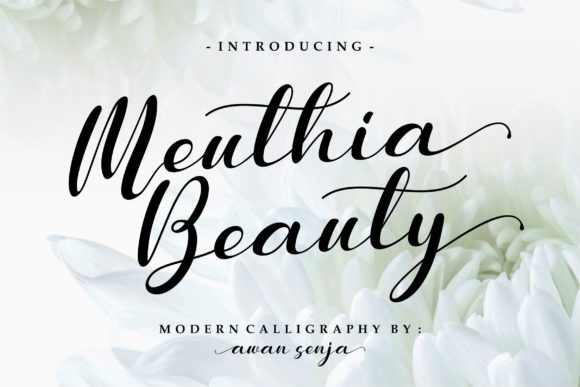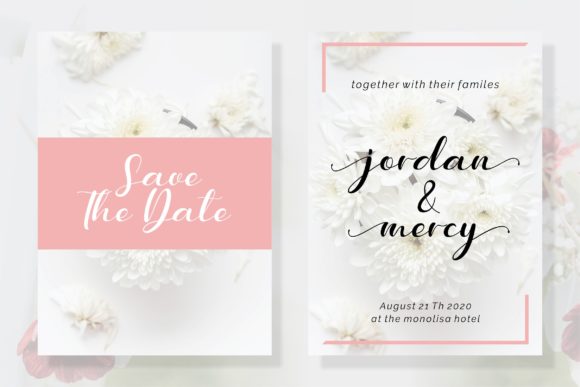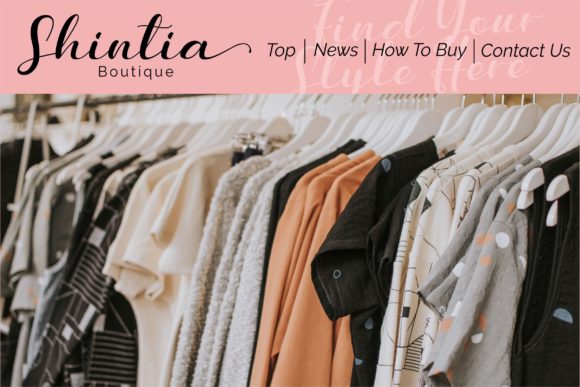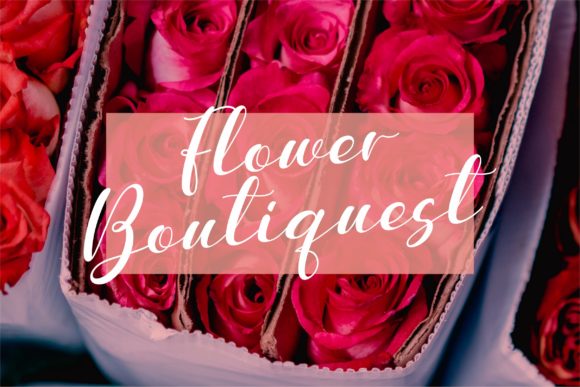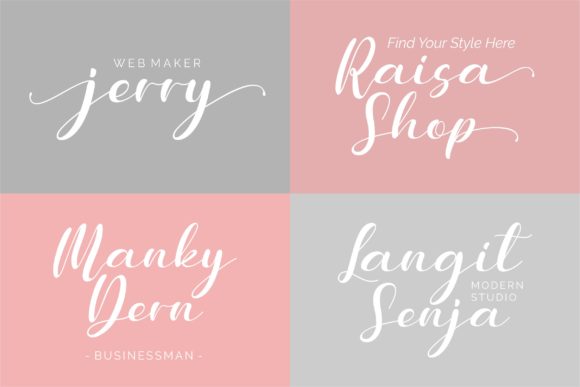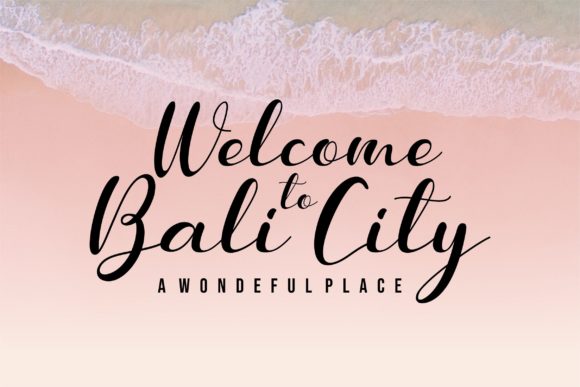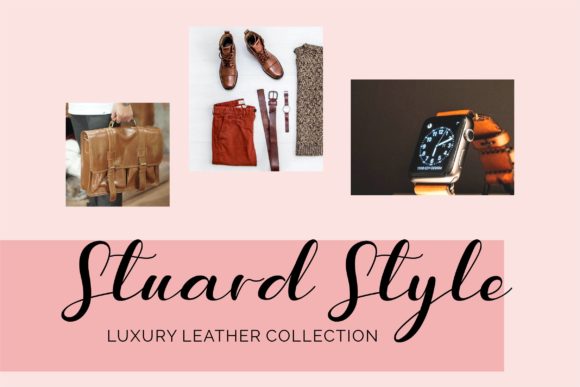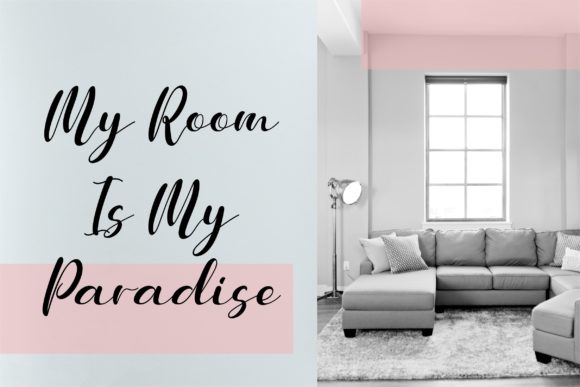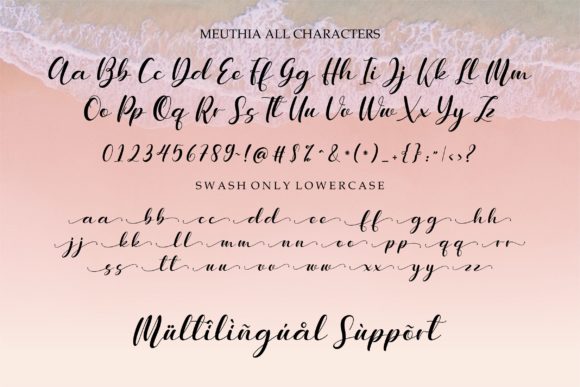
Meuthia Font
About Meuthia Font
Meuthia is a beautiful and classy signature font. This is a beautiful combination of timeless elegance and authentic calligraphy. It features an incredibly classic style, while still keeping a friendly feel. Fall in love with its authentic feel and use it to create gorgeous wedding invitations, beautiful stationary art, eye-catching social media posts, and cute greeting cards.
This font is PUA encoded which means you can access all of the amazing glyphs and swashes with ease! It also features a wealth of special features including alternate glyphs and ligatures.